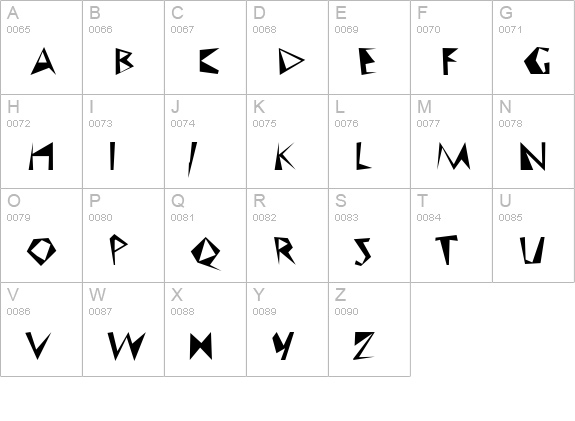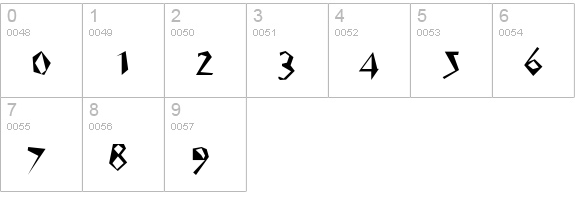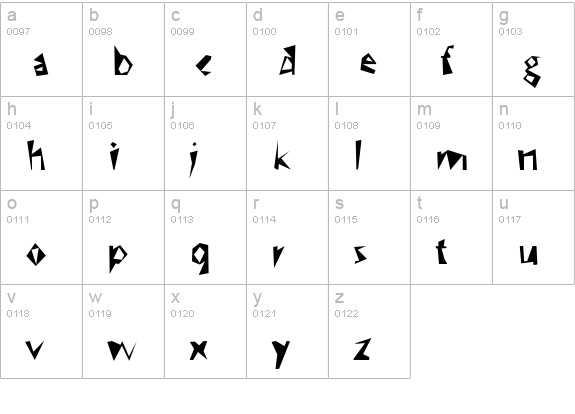
The WC Speed Bta font is a unique and eye-catching typeface that exudes a sense of speed and dynamism. With its bold strokes and contemporary design, this font is perfect for projects that require a modern and energetic look. Whether you're designing a poster, logo, or website, WC Speed Bta is sure to make a statement. What makes WC Speed Bta even more appealing is that it is available for free download at FontsMarket.com. This means that you can easily access this stylish font without having to spend a dime. Don't miss out on the opportunity to add WC Speed Bta to your font collection and take your designs to the next level. Download it today and let your creativity soar!